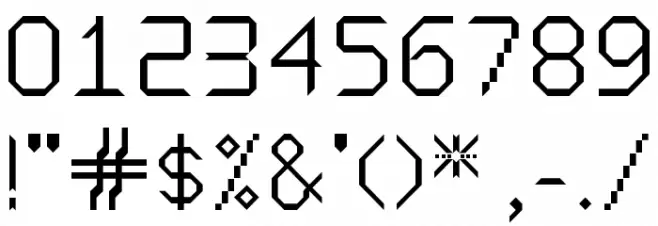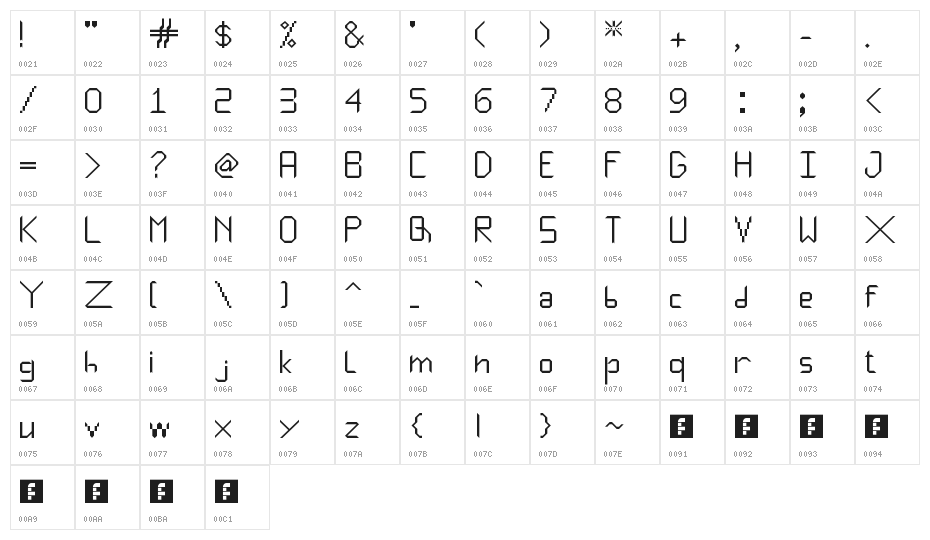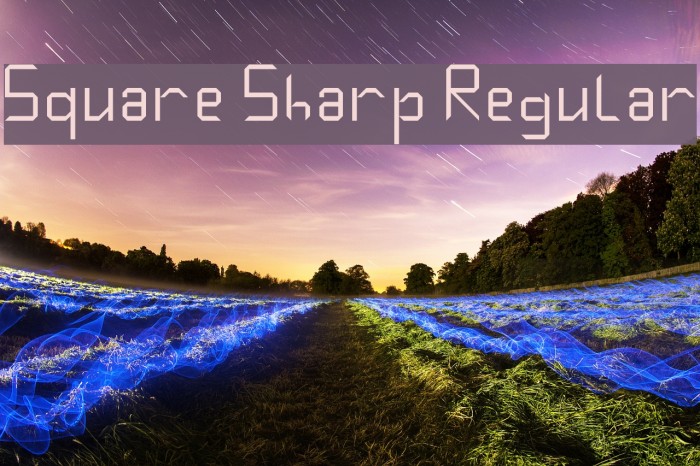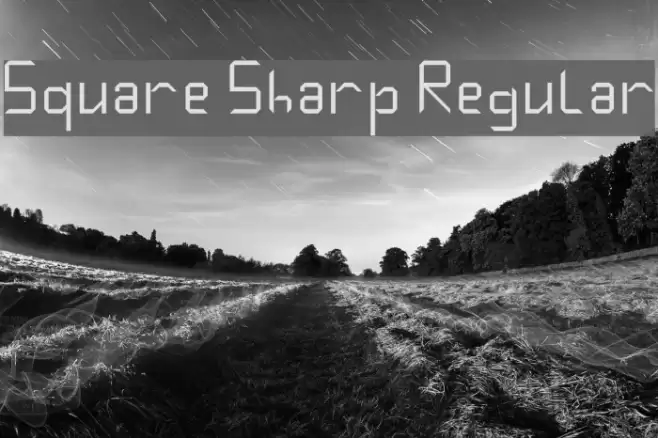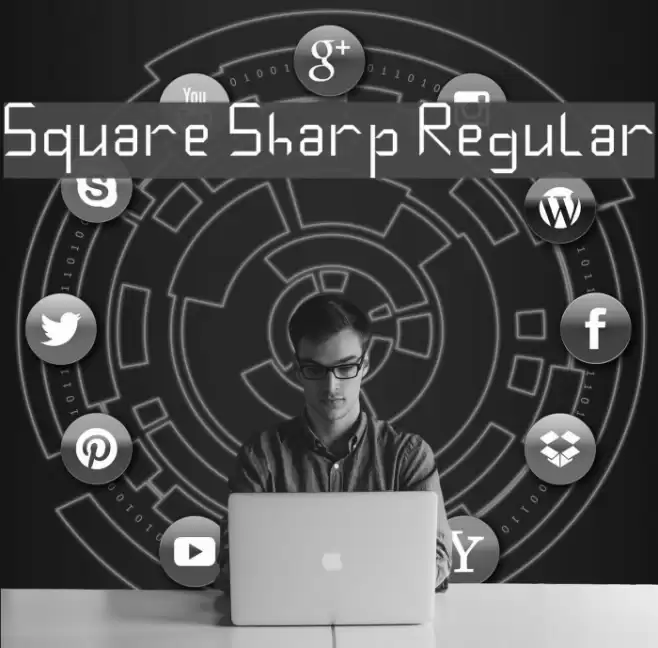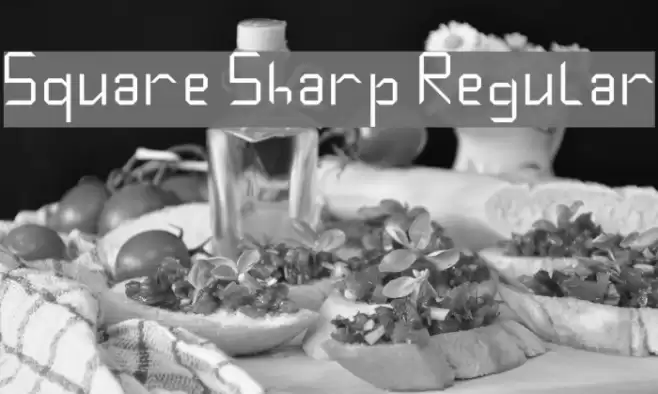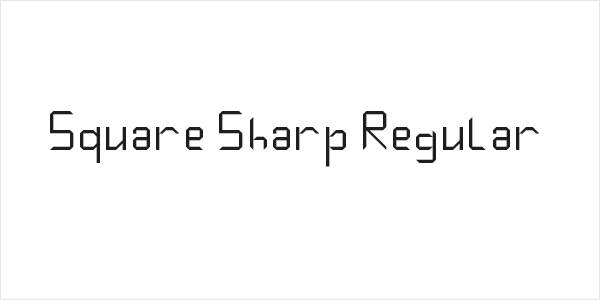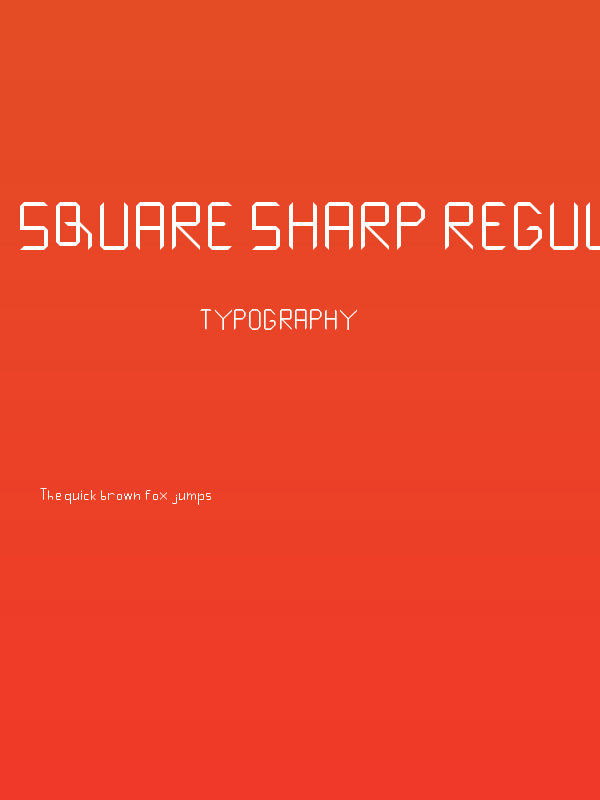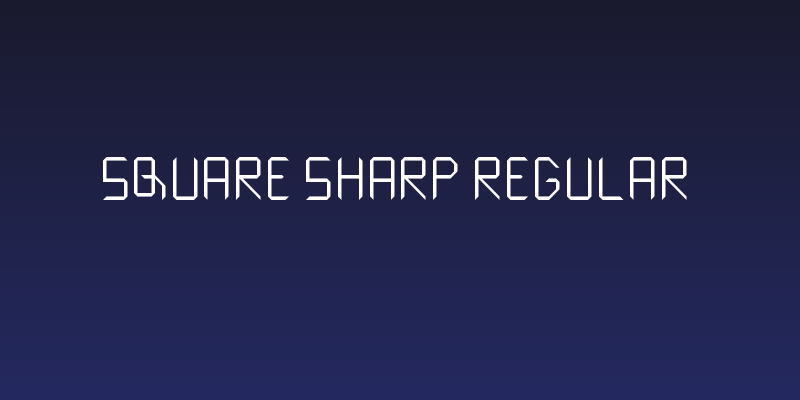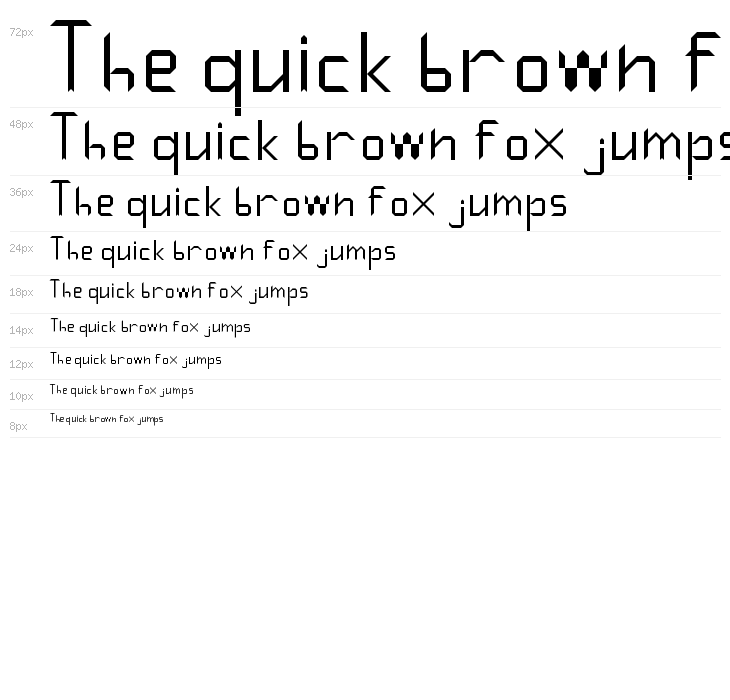
Square Sharp Regular Font
Square Sharp Regular Description
This font features a geometric and angular design, characterized by its sharp, square edges and uniform line thickness. The uppercase and lowercase letters maintain a consistent style, with a modern and futuristic appearance. The numerals and special characters follow the same design principles, ensuring a cohesive look across all elements. The font's structure is clean and precise, making it suitable for digital displays and contemporary design projects.
| Use Case | Logos, Headlines, Digital displays |
| Proposed Projects | Ideal for digital interfaces, tech branding, modern posters, and futuristic-themed designs. |